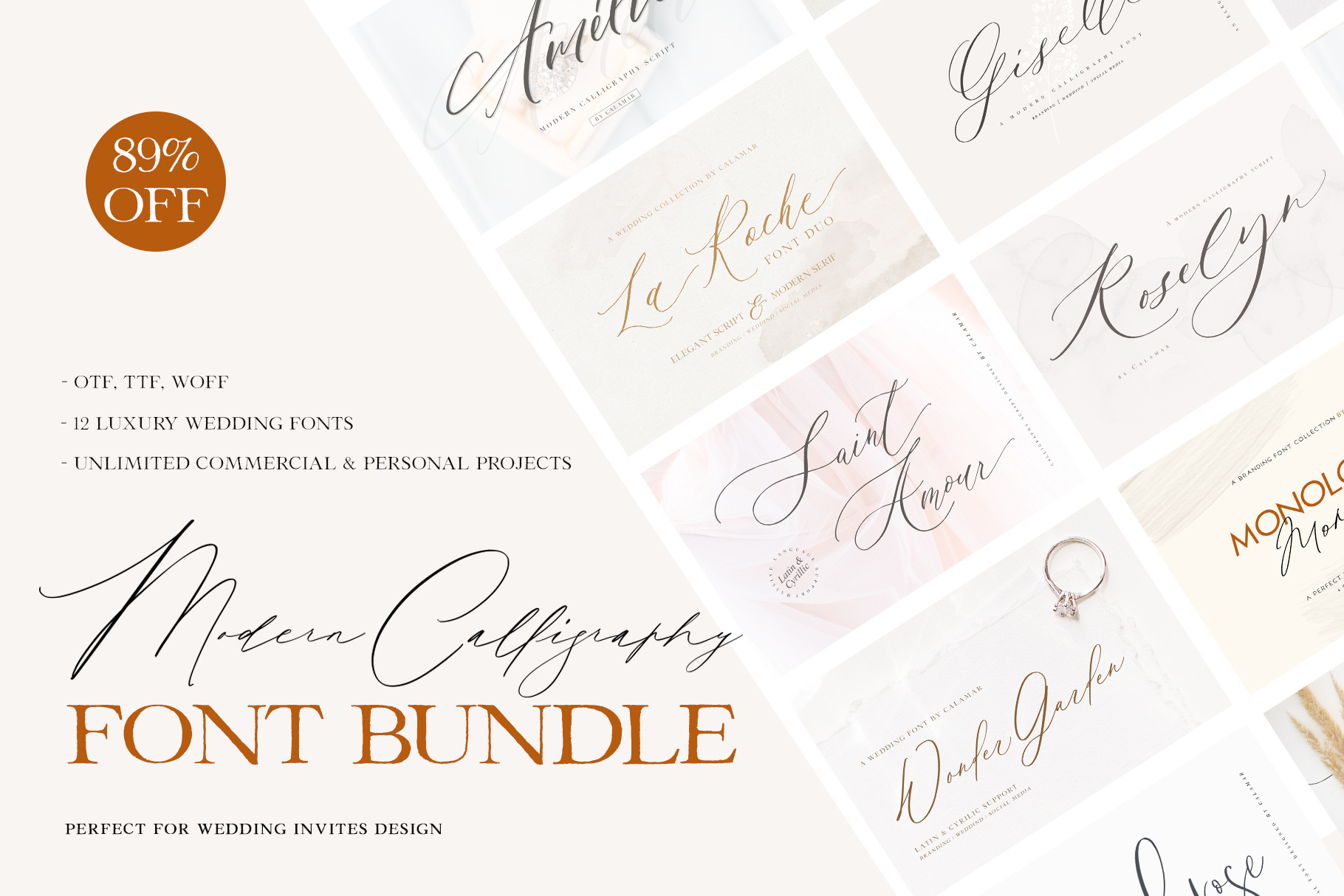
Modern Calligraphy Font Bundle
Are you ready for a new bundle of absolutely gorgeous calligraphy scripts? Well, The Modern Calligraphy Font Bundle is READY!
It's perfect for a wedding invitations, save the date cards, fine art papery, feminine branding or personal gift cards. This awesome bundle will save you 89% off the regular price.